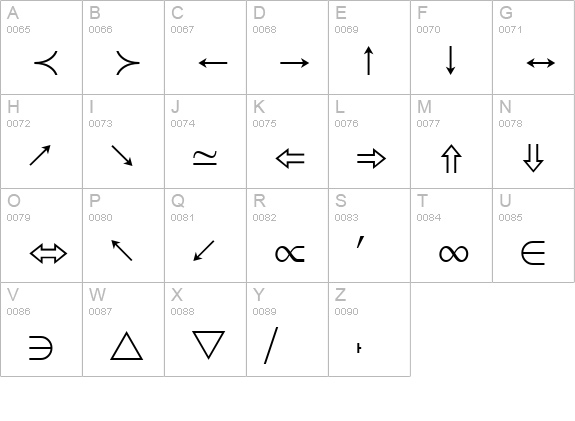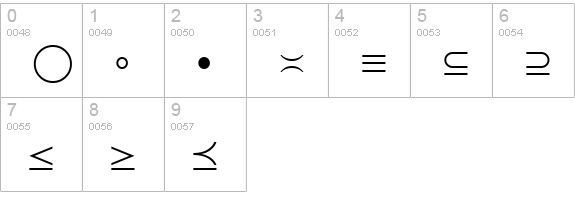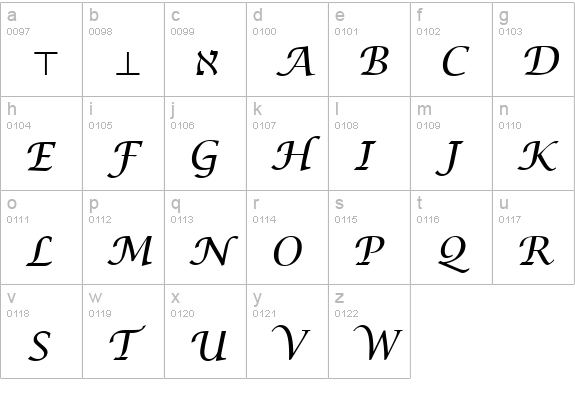
Math Symbol Font Details
The Math Symbol font is a versatile and essential tool for mathematicians, scientists, and students alike. With its extensive collection of mathematical symbols, equations, and formulas, this font is a must-have for anyone working in the field of mathematics or related disciplines. Designed with precision and attention to detail, the Math Symbol font is not only visually appealing, but also highly functional. Each symbol is carefully crafted to ensure clarity and readability, making it easy to convey complex mathematical concepts with ease. What sets the Math Symbol font apart is its availability as a free download at FontsMarket.com. This means that you can enhance your documents, presentations, and academic papers with professional-looking mathematical symbols and equations without breaking the bank. Whether you are a seasoned mathematician or just starting your journey in the world of numbers, the Math Symbol font is an invaluable resource. It simplifies the process of creating equations, diagrams, and mathematical notations, allowing you to focus on the content rather than the formatting. Don't miss out on this incredible opportunity to enhance your mathematical work with the Math Symbol font. Visit FontsMarket.com today and download this amazing font for free. Take your mathematical communication to the next level and make a lasting impression with the Math Symbol font.